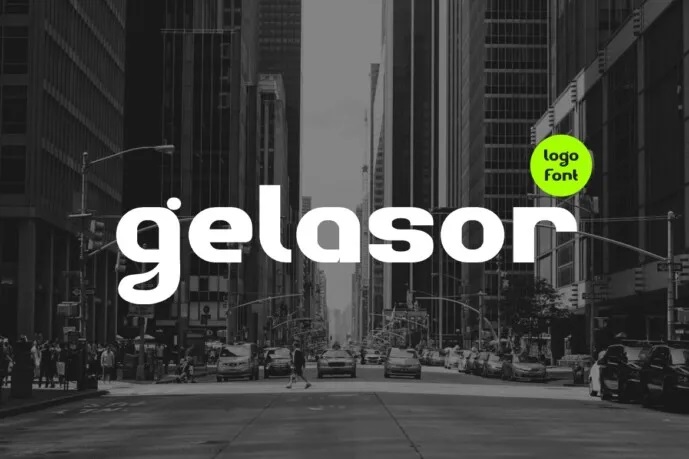
Gelasor Font
Gelasor font is unique. Ideal for your designs whether for labeling, movie scene, poster, movie title, concerts, album covers, logos and much more. The free version has all the ABC and composed letters both big and small and some other signs as well.
Gelasor Sans Serif Font